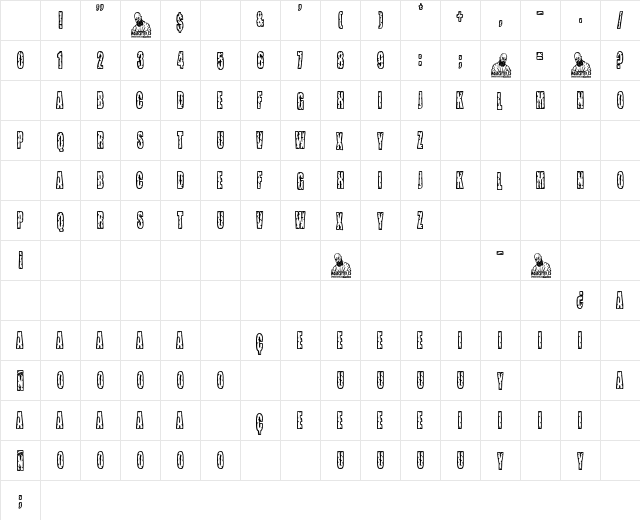
Complete Indie Film Festival Regular glyph index. Displaying only characters natively supported by Indie Film Festival Regular font.
Indie Film Festival is a composed and adaptable typeface that performs quietly and consistently across a wide range of design contexts.